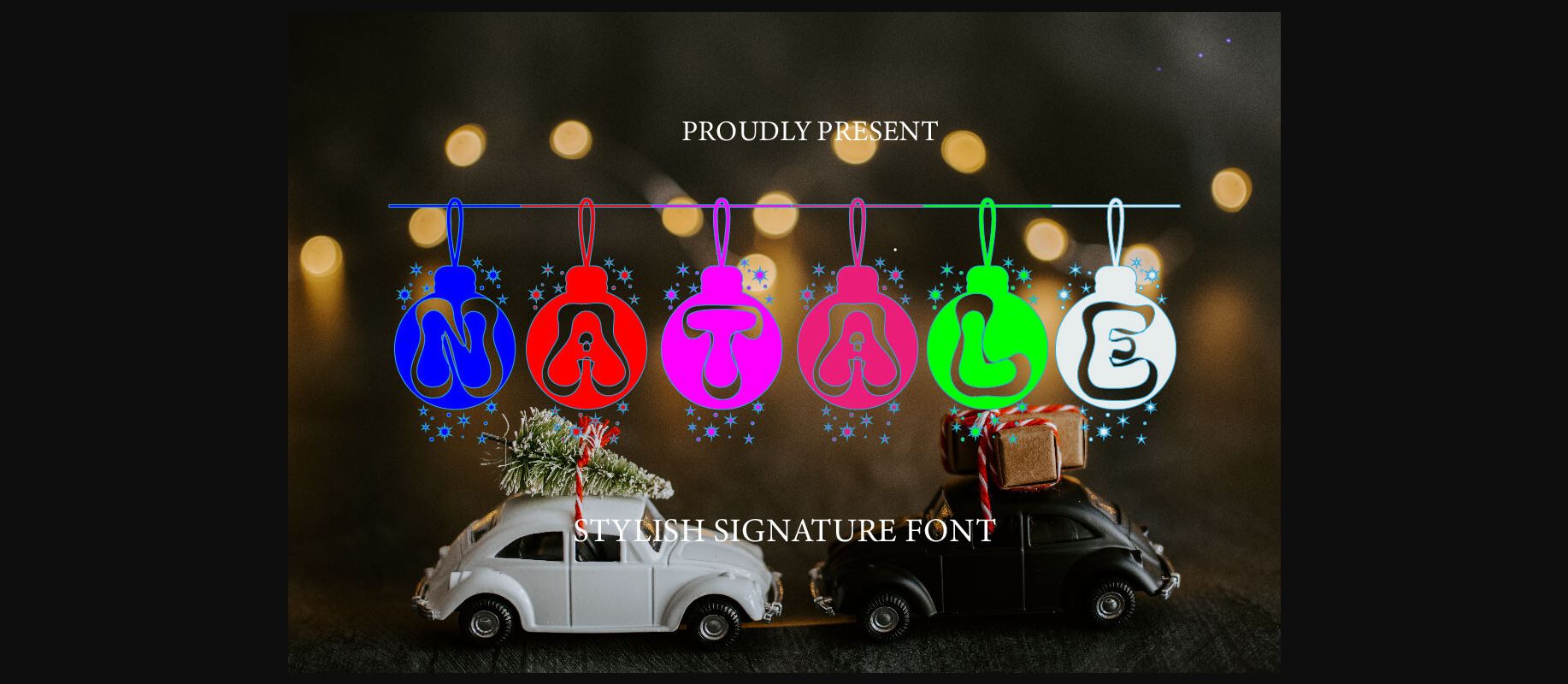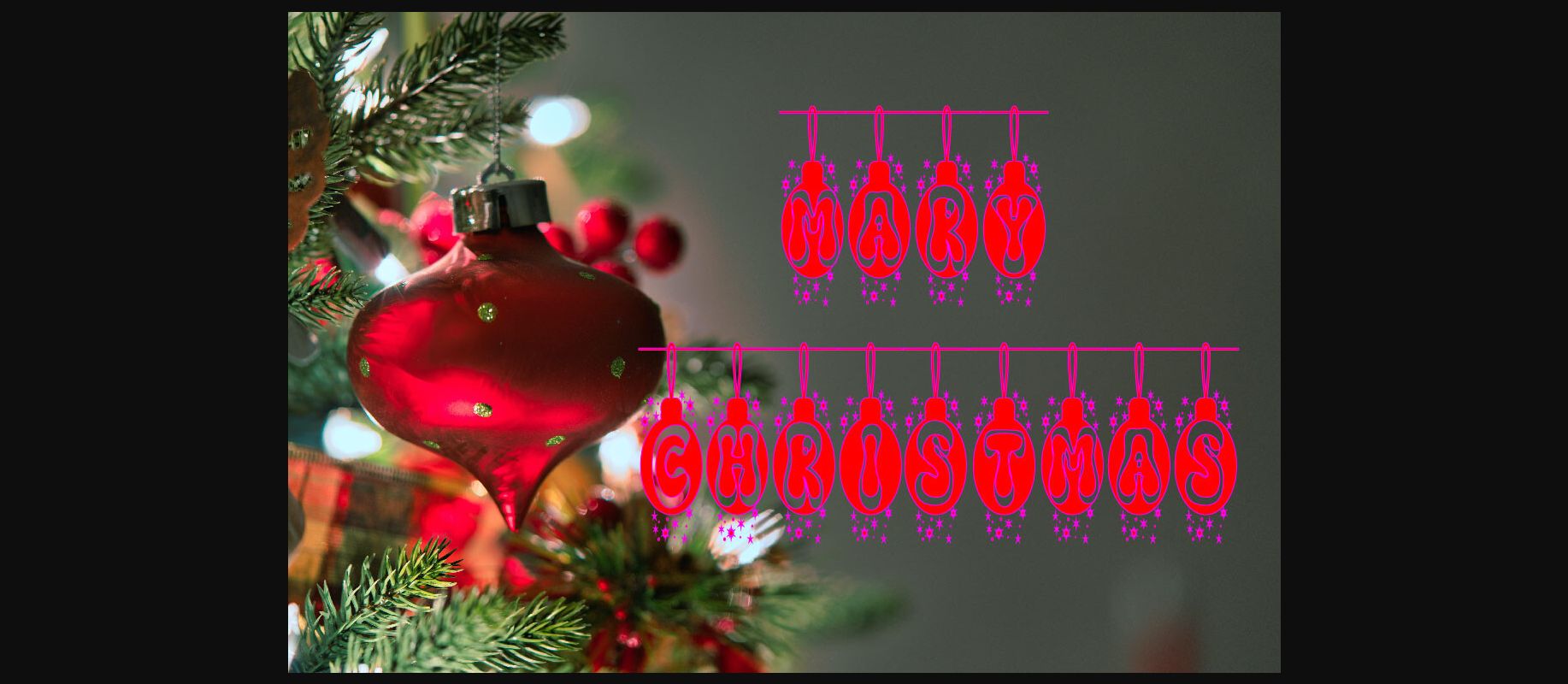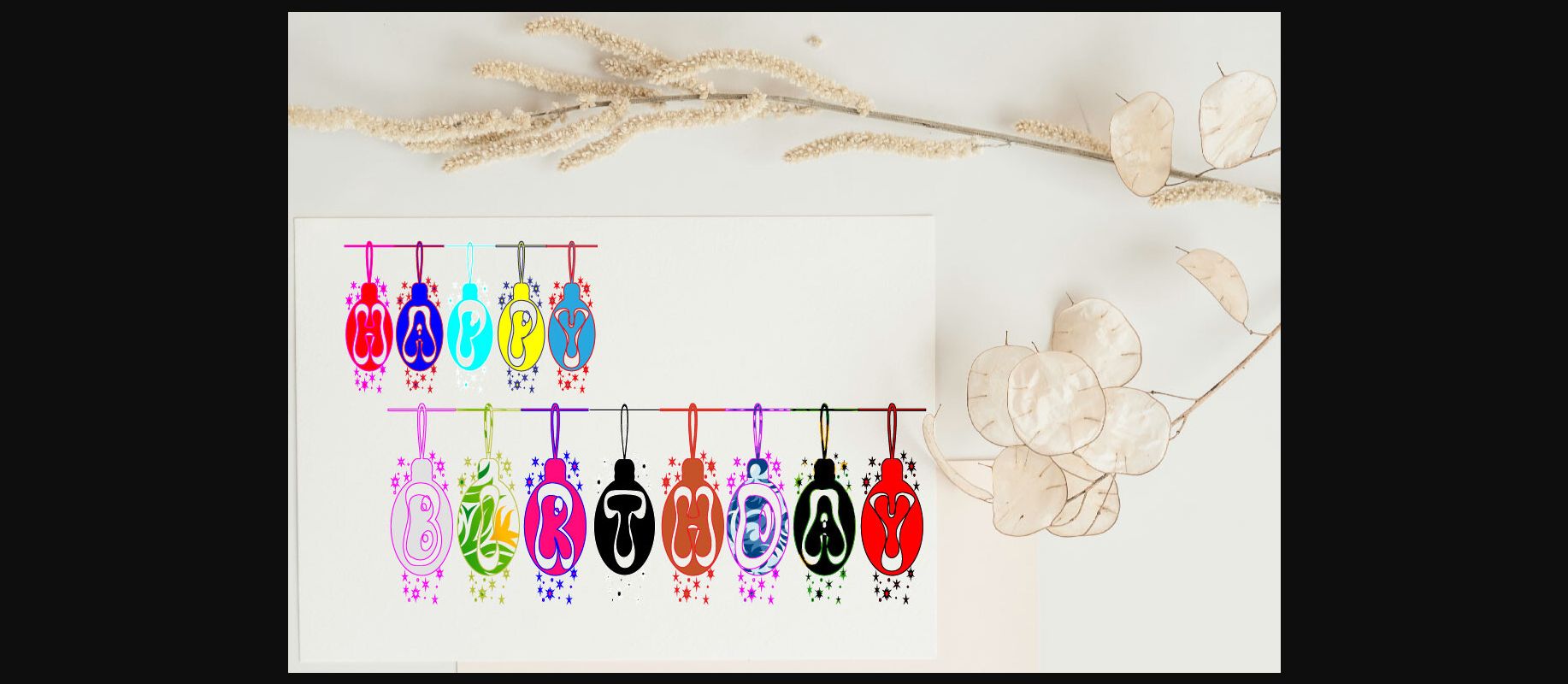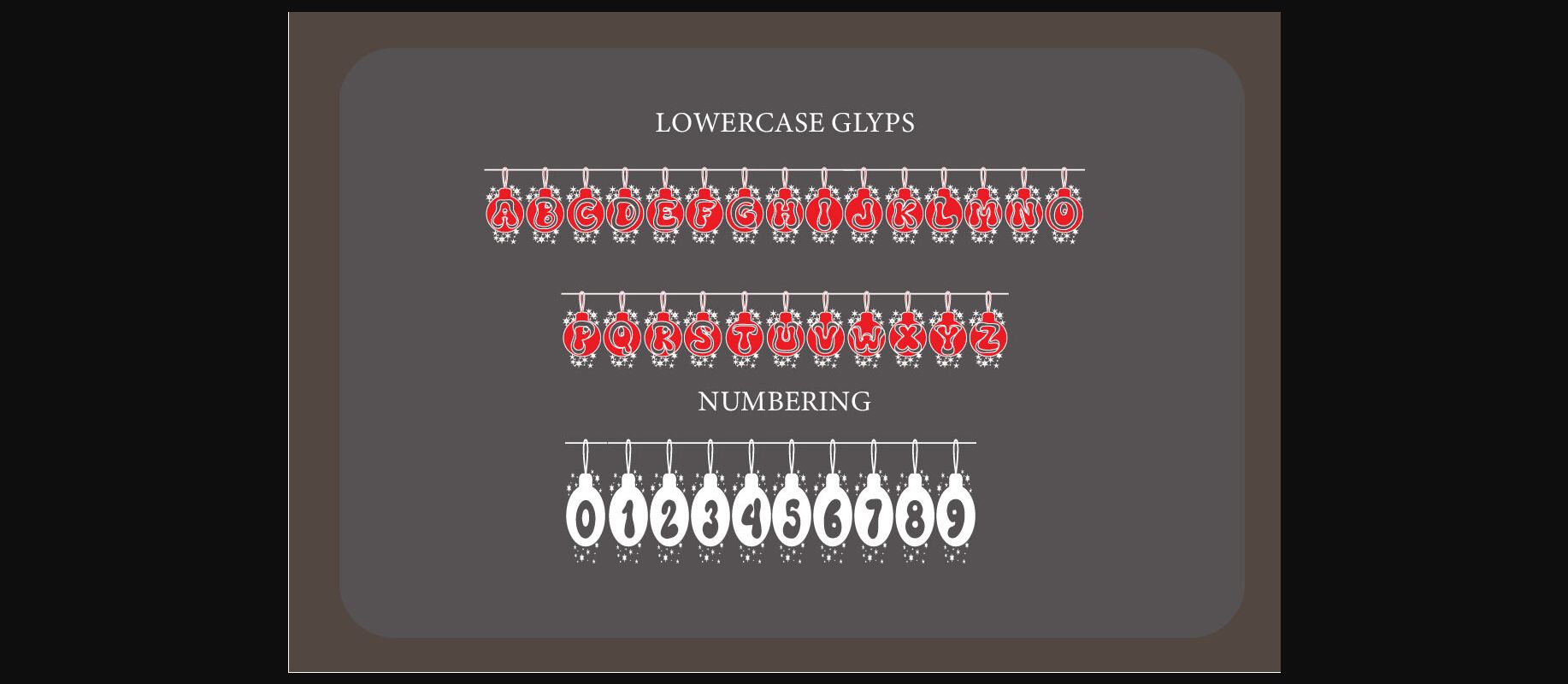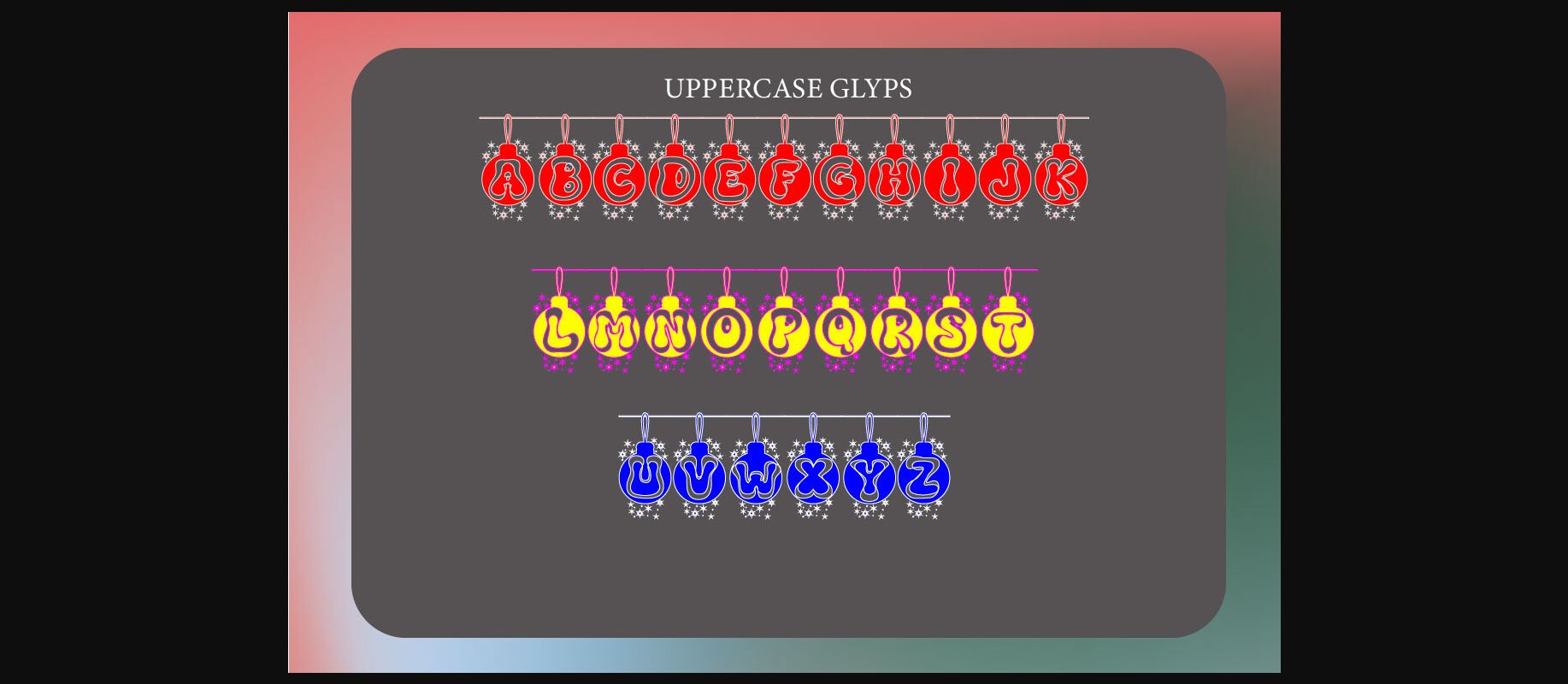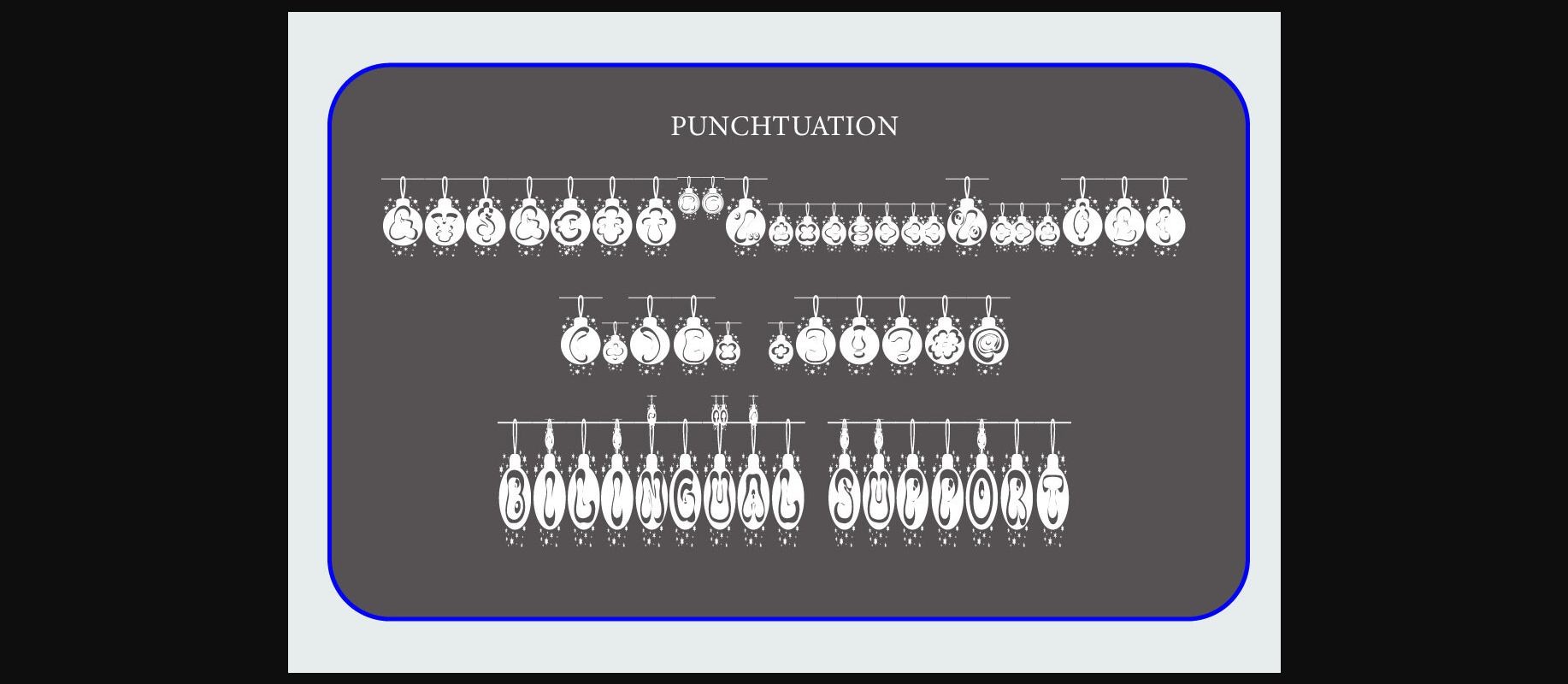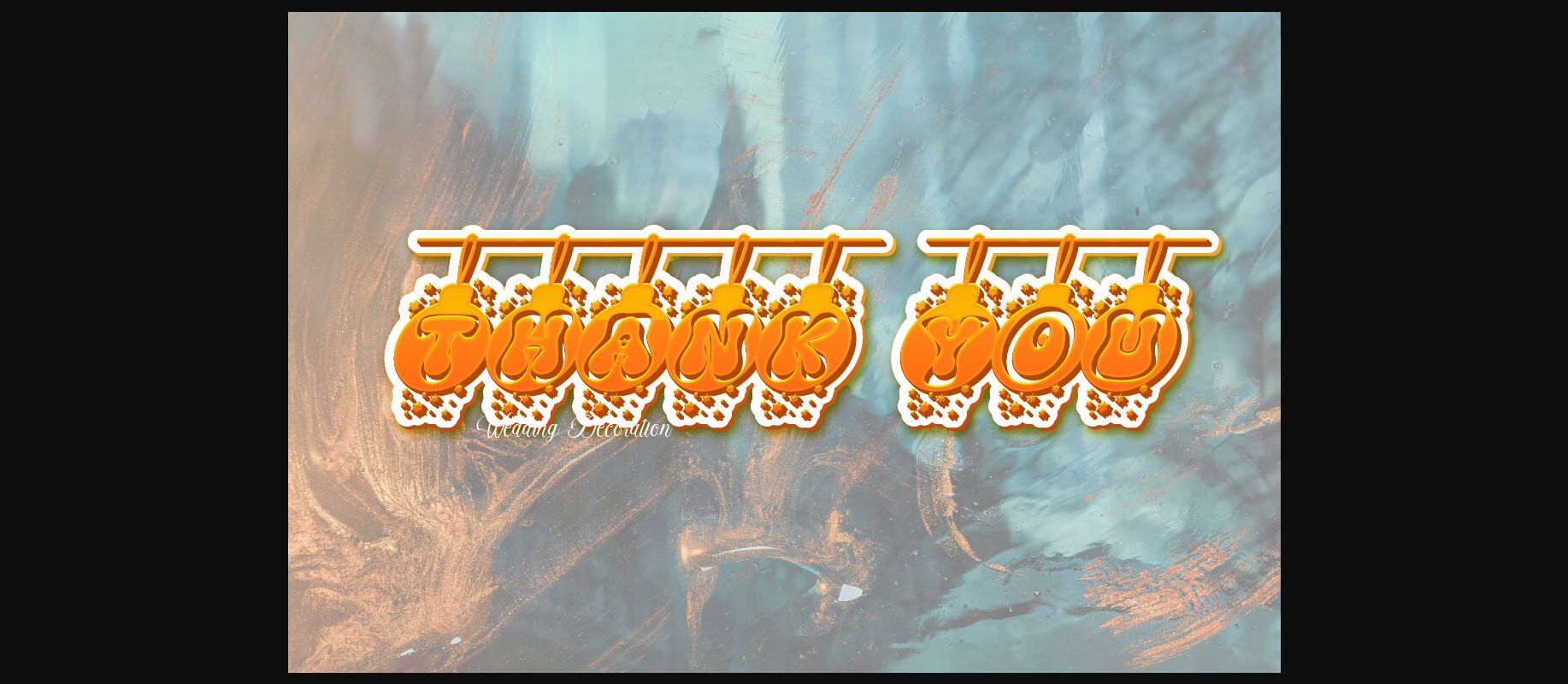
Natale Font
About Natale Font
Introducing Natale, a beautiful and unique decorative display font, perfect for Christmas. This font is inspired by party on Christmas and birthday moment, children party, which makes it suitable for creating cute holiday t-shirts, stickers, cover books, children’s books, social media posts, and much more.